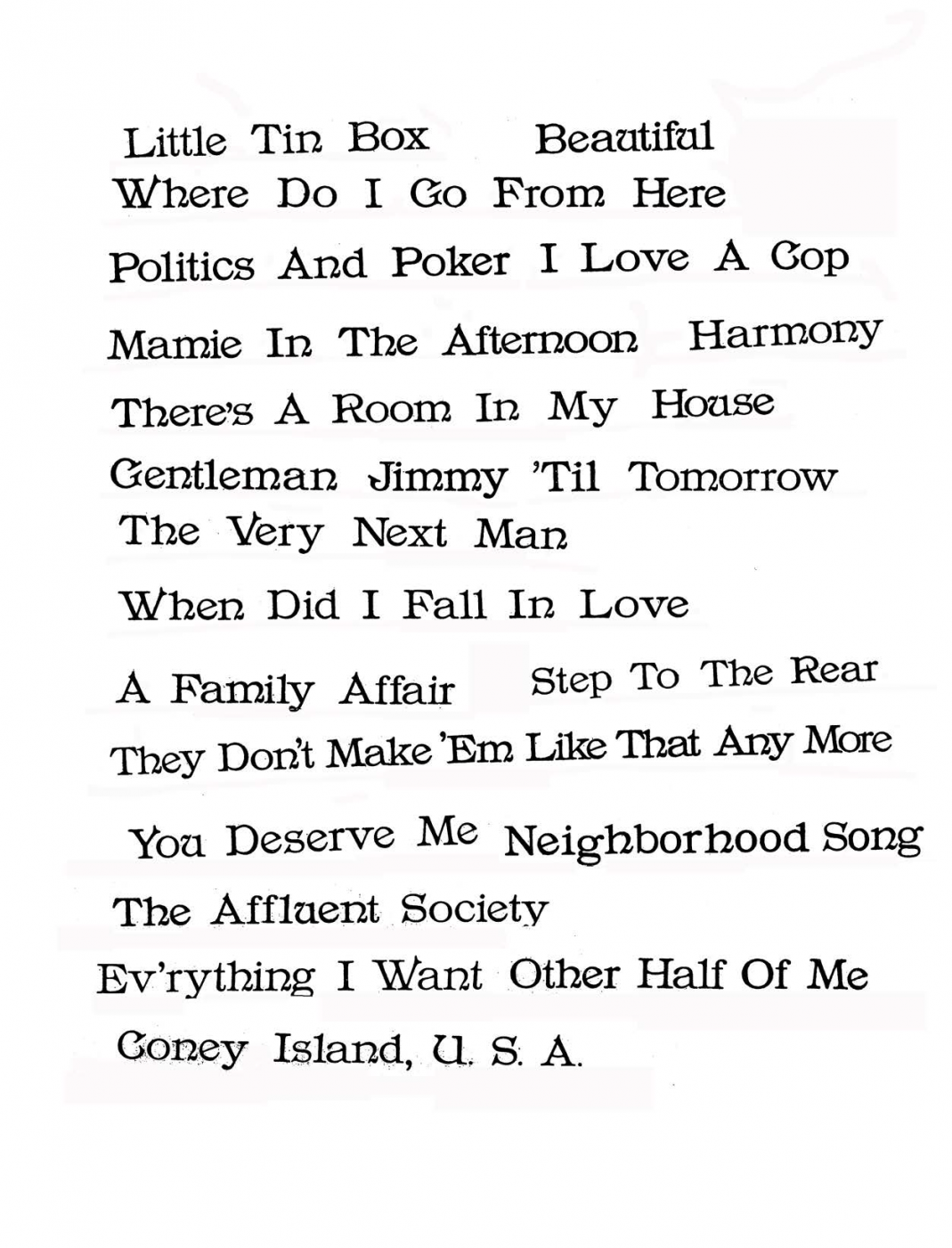
Mid-1900s font used for titling on music scores
I've tried a bunch of different font identification sites without any luck. The best I can come up with are Gargoyle RR Light and Italia Book, but neither are great matches. This typeface may not exist in digital form yet. Here is the sample I used:
Here's a more extensive set of glyphs of the same family so you can get a better sense of the style: